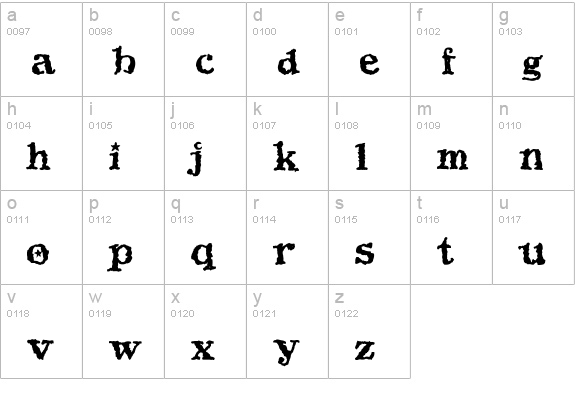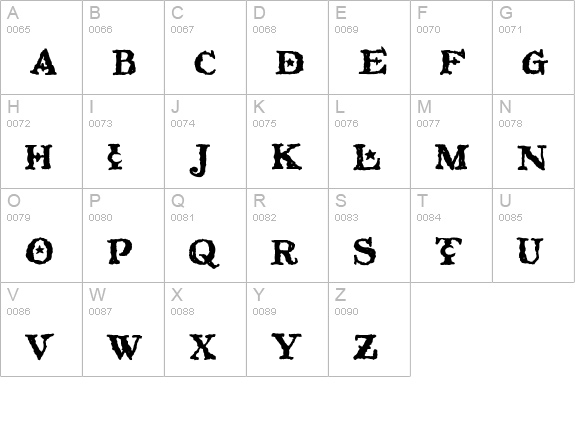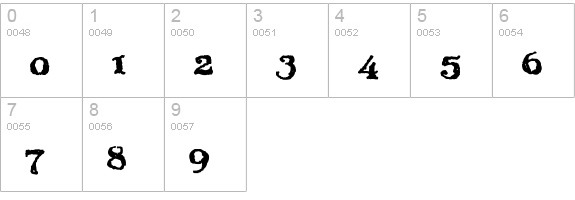
Beltane Font Details
Introducing Beltane font, a stunning and versatile typeface that exudes elegance and charm. With its intricate details and graceful curves, Beltane is perfect for adding a touch of sophistication to any design project. Whether you're creating wedding invitations, branding materials, or social media graphics, this font will elevate your work to the next level. What sets Beltane font apart is not only its beauty but also the fact that it is free to download. Yes, you read that right - Beltane font is freely available at FontsMarket.com, so you can easily access this premium font without breaking the bank. Embrace the beauty and versatility of Beltane font in your creative endeavors and watch your designs come to life with style and grace.